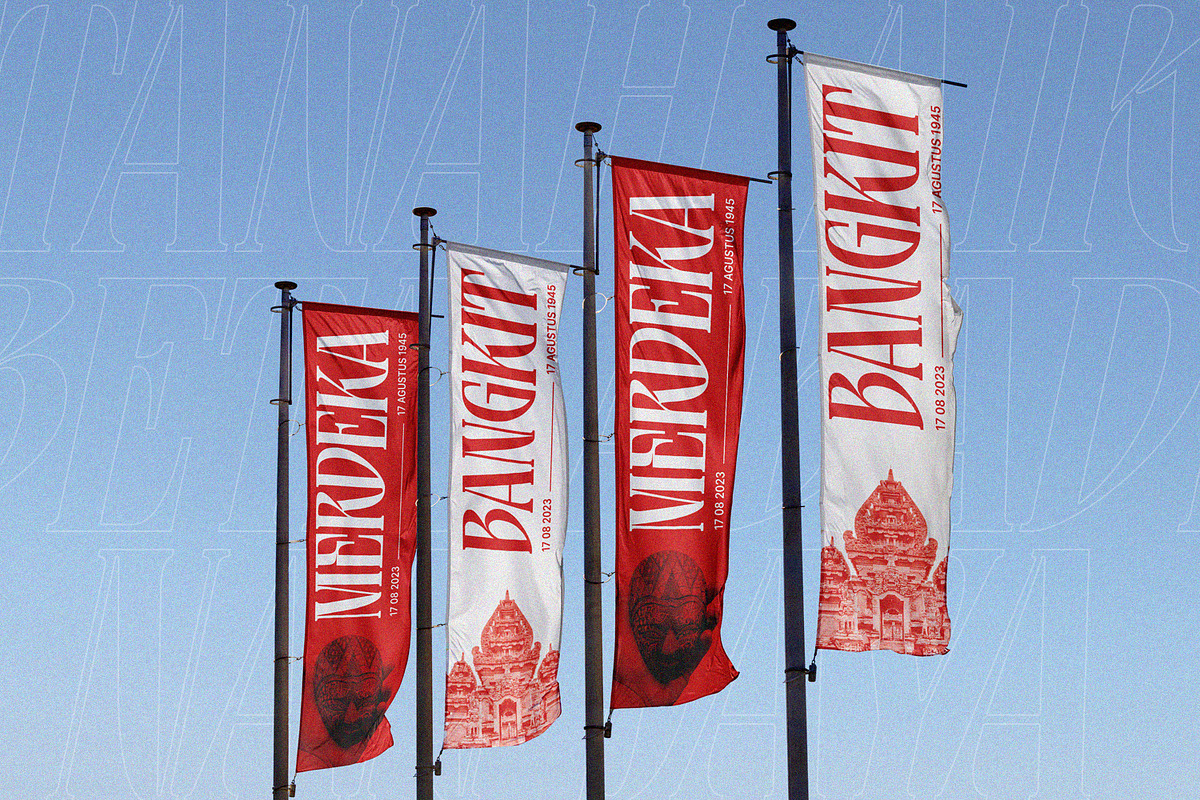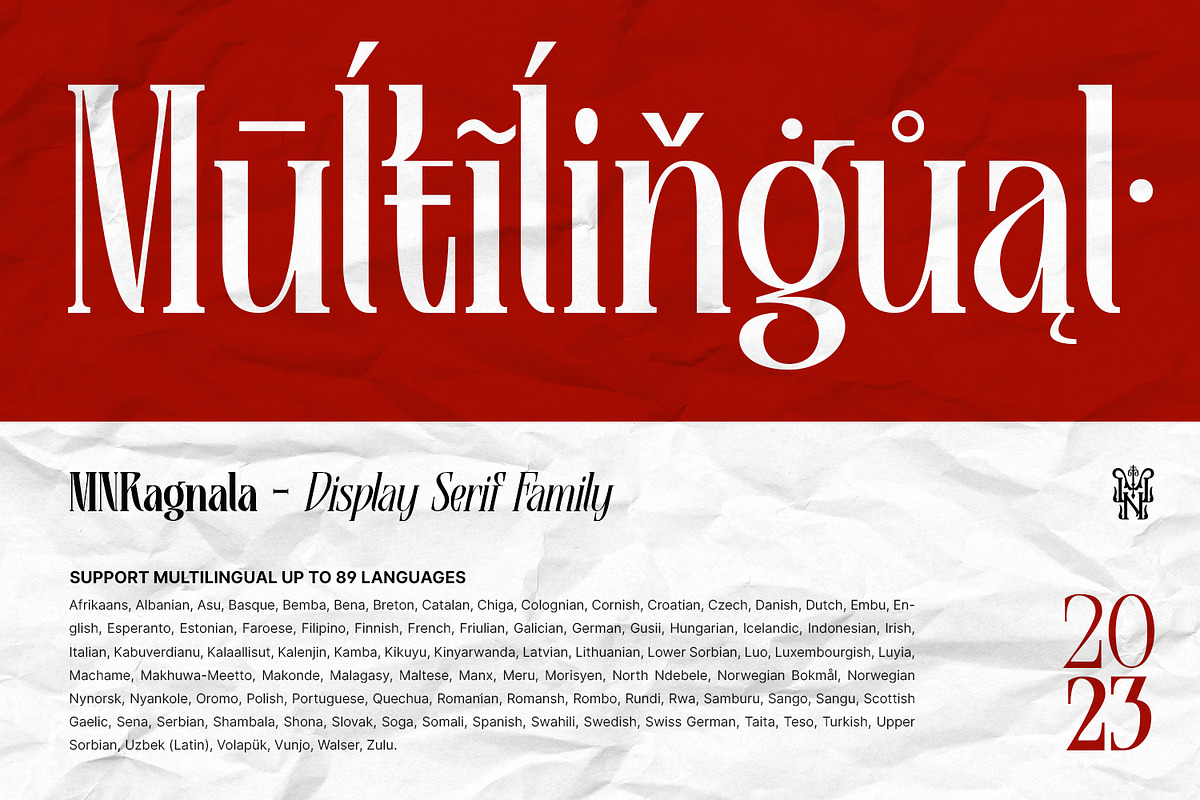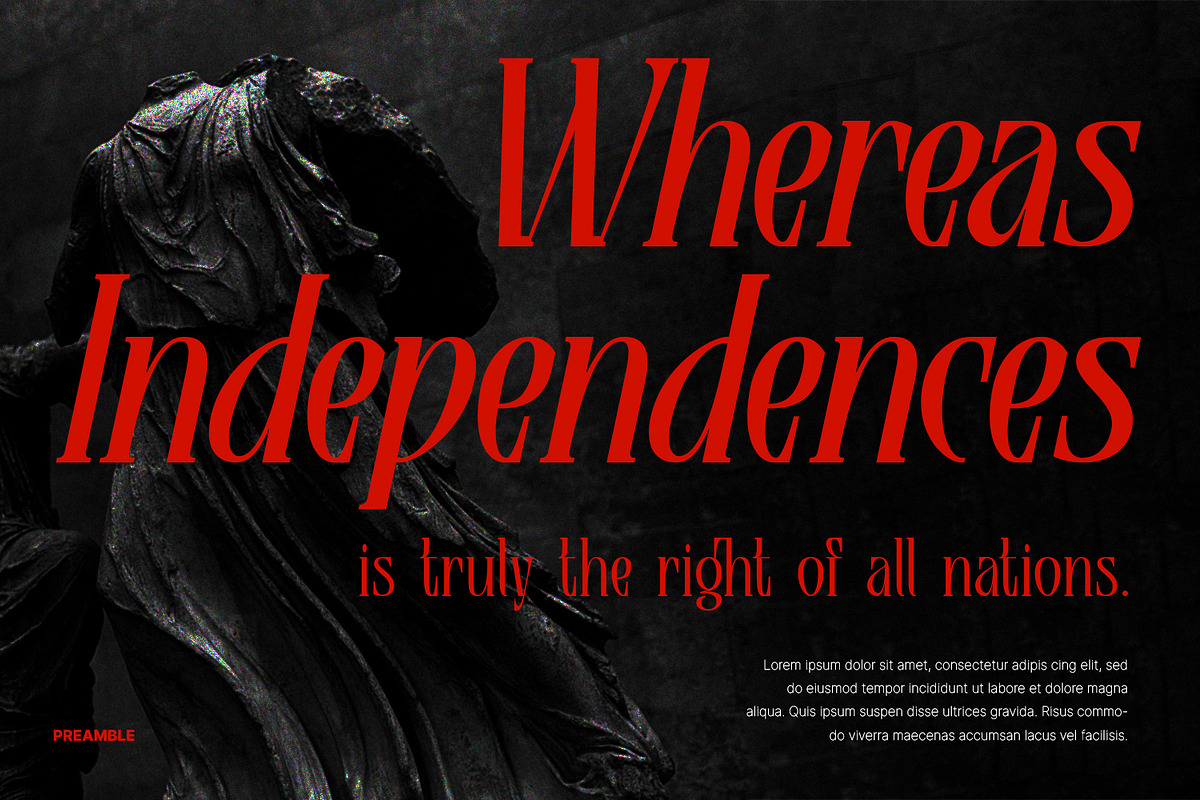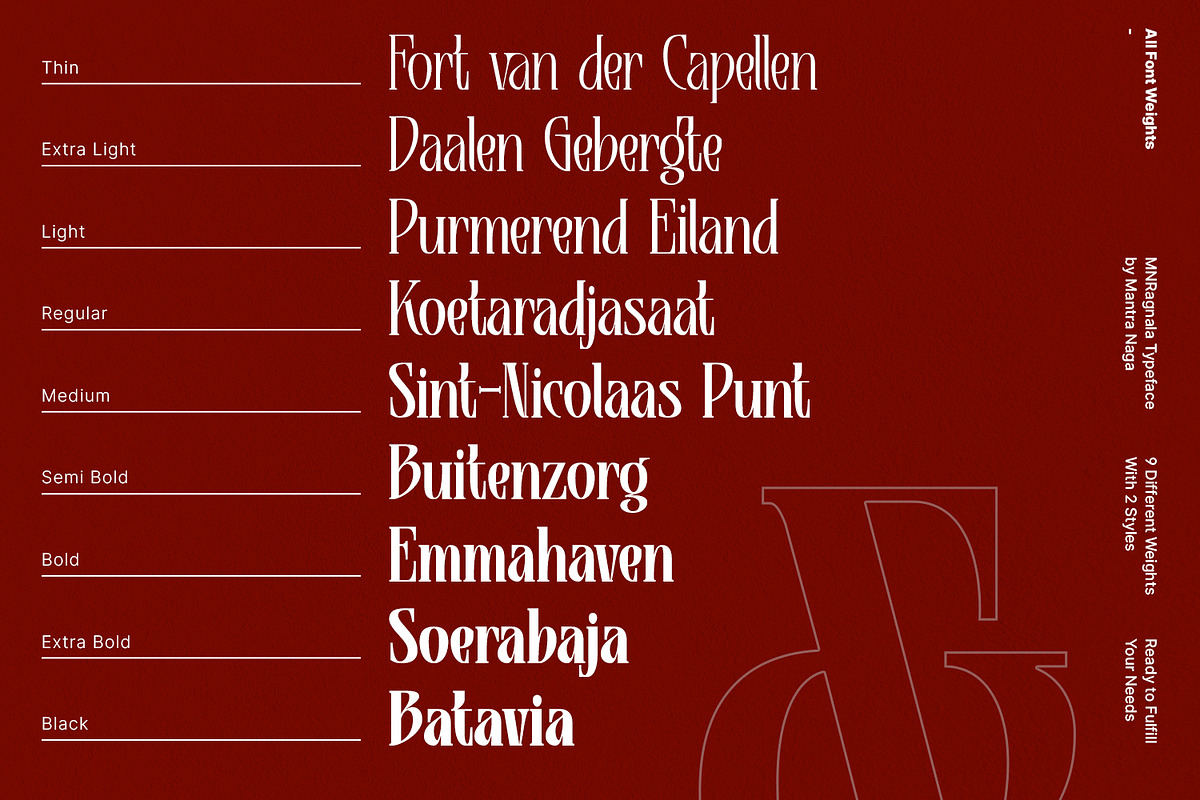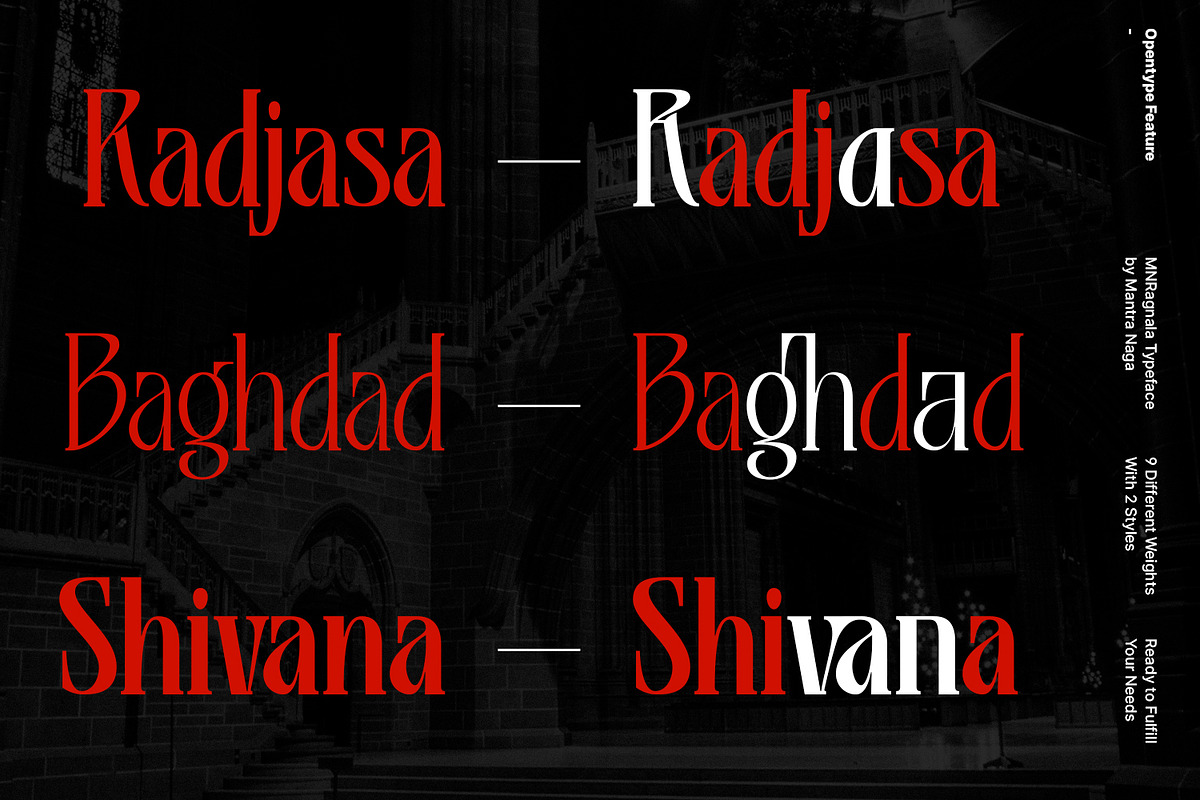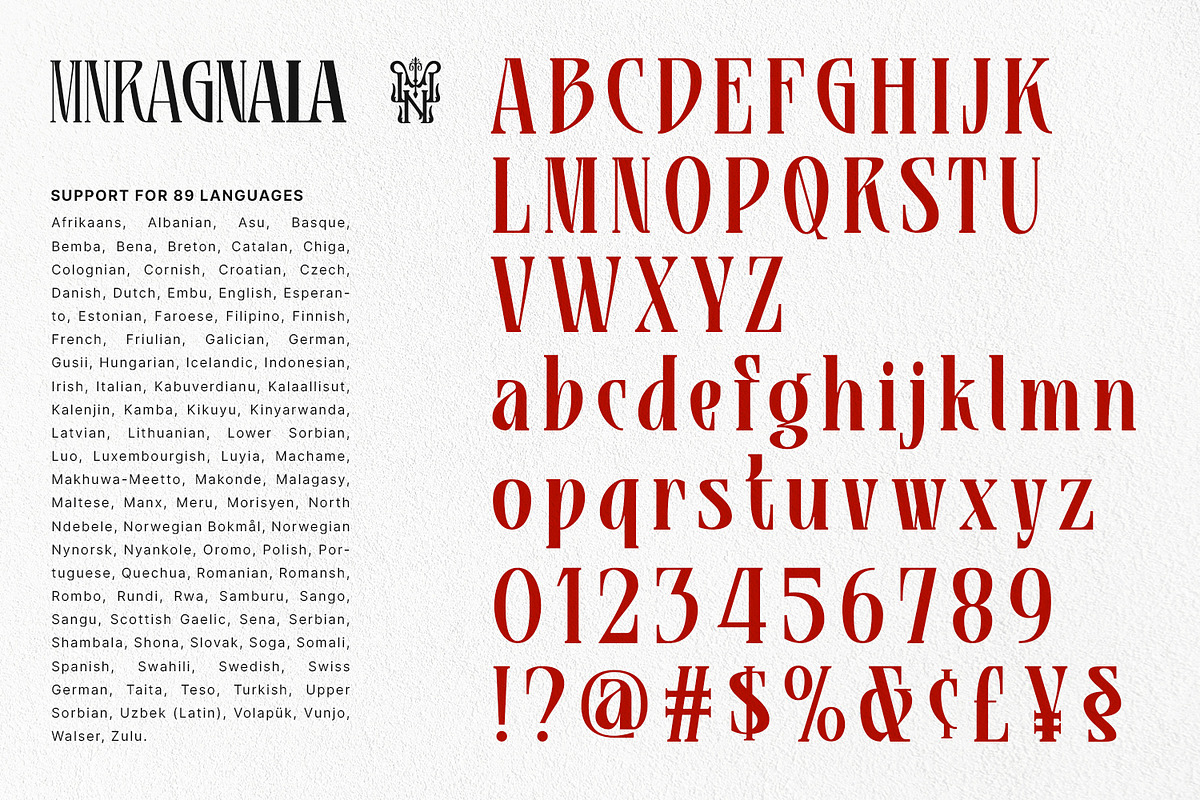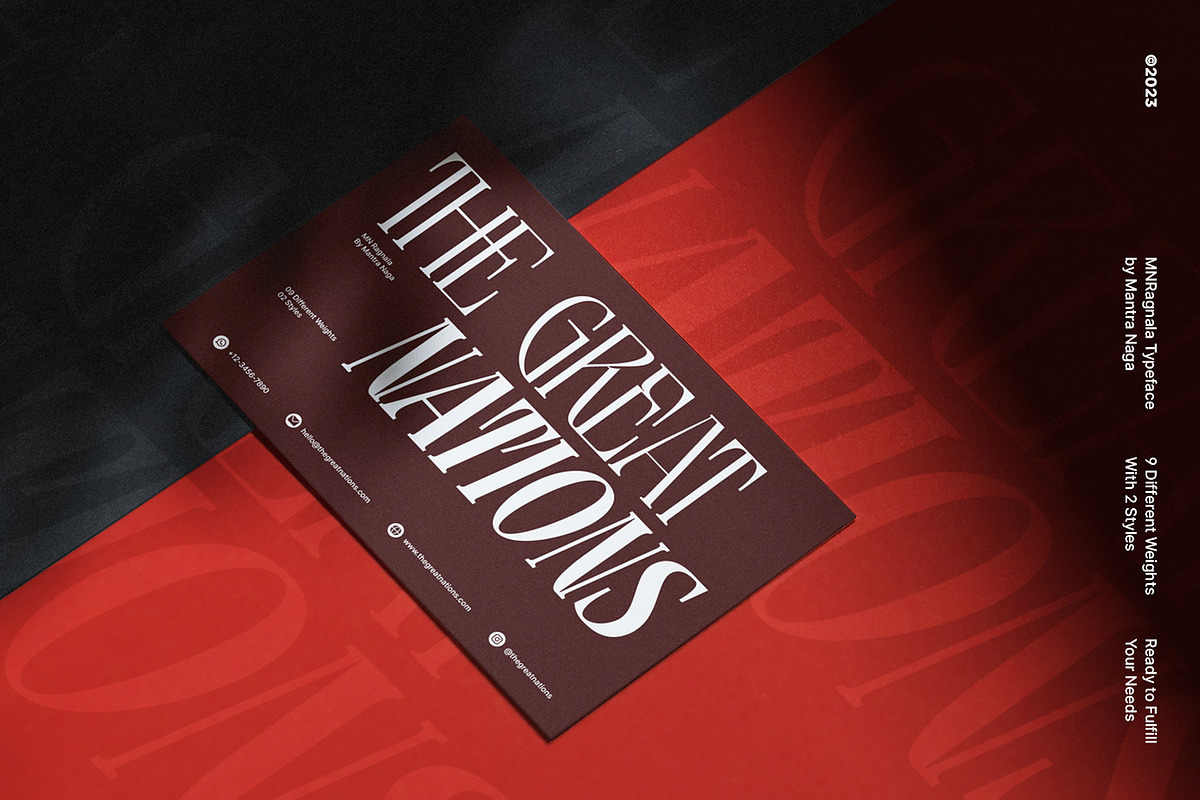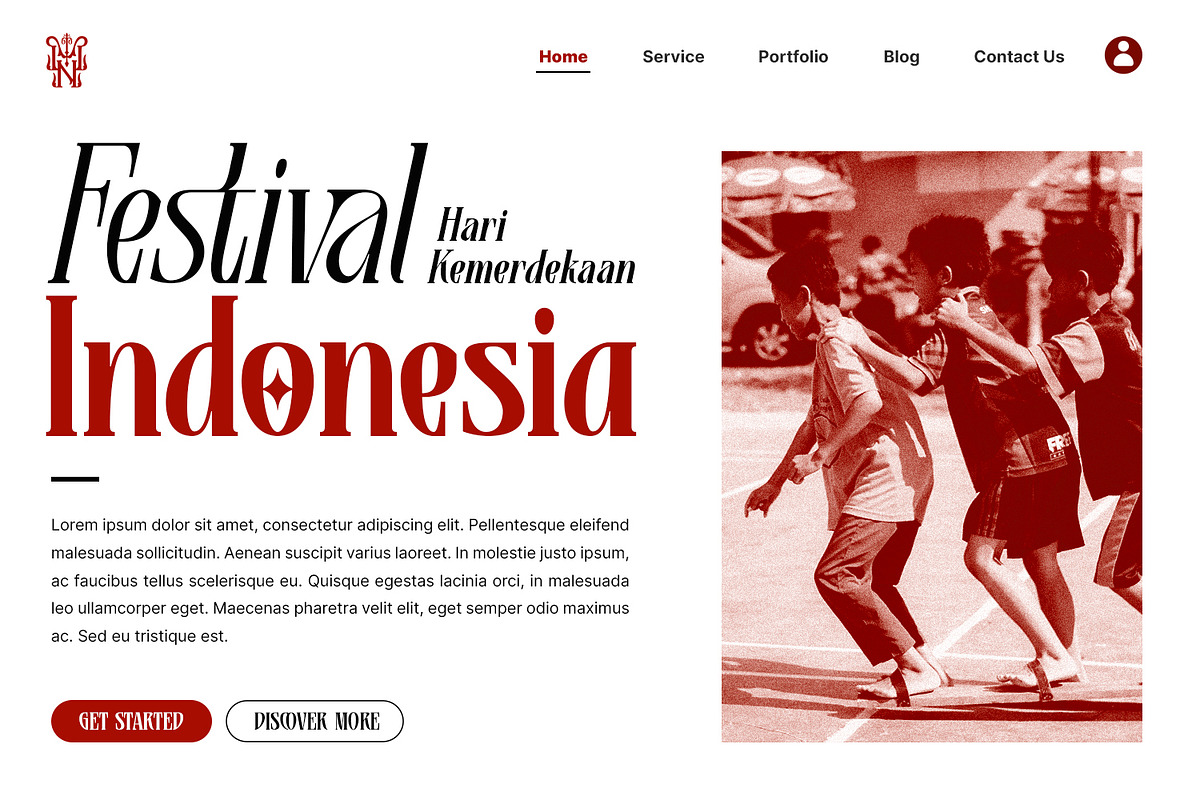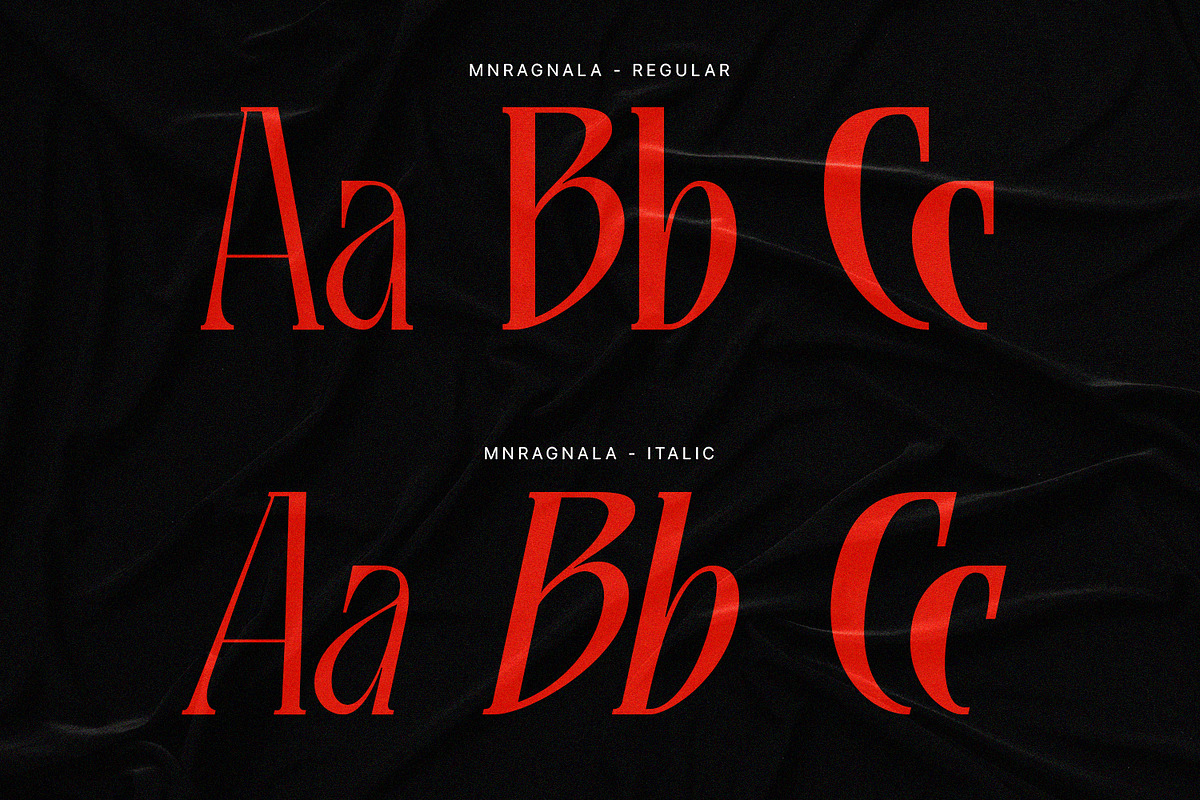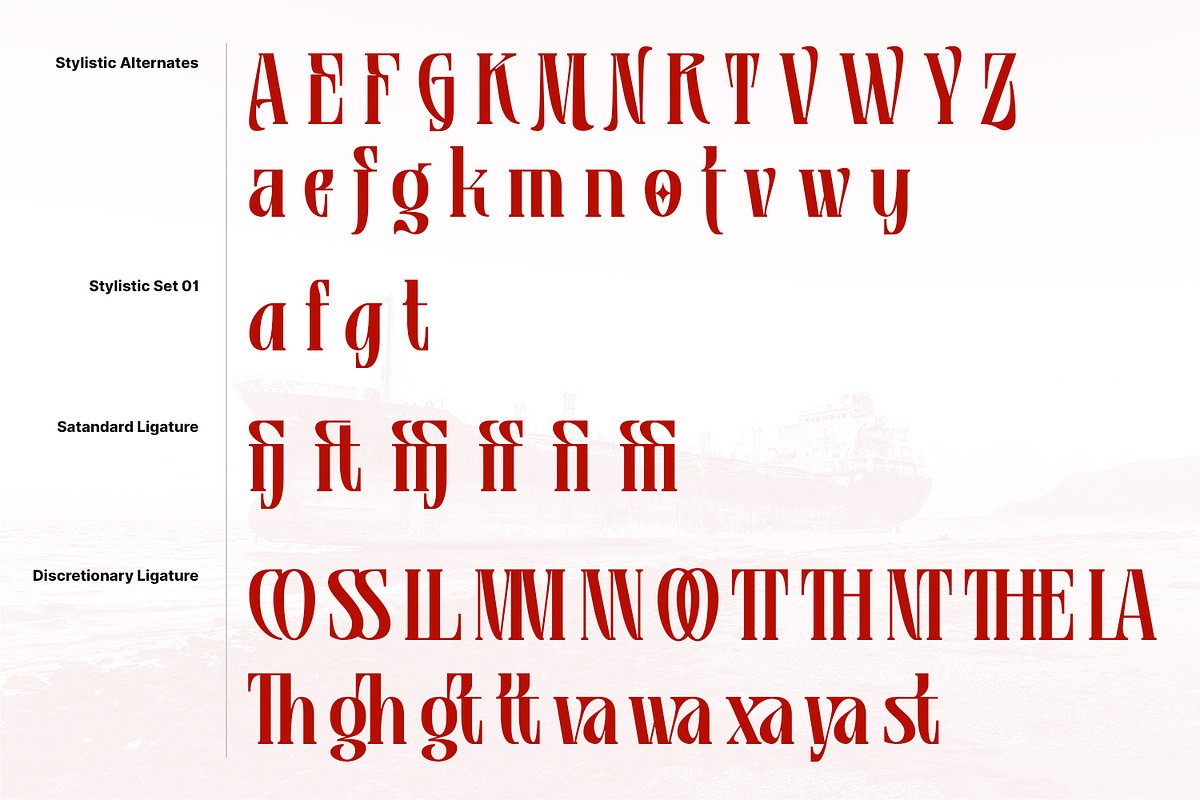
MNRagnala
MNRagnala is a display serif typeface that boasts a versatile collection of 18 font families, encompassing 9 weight weights and 2 unique styles. With an inherent blend of elegance and boldness, this font exudes a commanding presence, making it an ideal choice for branding endeavors and diverse design requirements. MN Ragnala's impeccable design not only delivers aesthetic charm but also offers exceptional multilingual language support, ensuring seamless communication across cultures and global audiences.
424 Glyphs 4 Opentype features Discretionary Ligatures, Standard Ligatures, Stylistic Alternates and Stylistic Set 9 Weights (Thin, Extra Light, Light, Regular, Medium, Semibold, Bold, Extrabold, Black) 2 Styles (Regular & Italic) Support Multilingual for 89 language